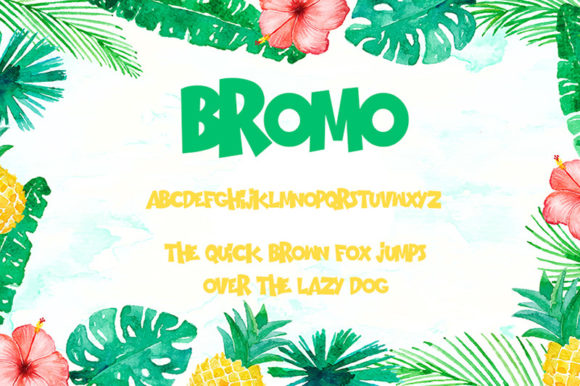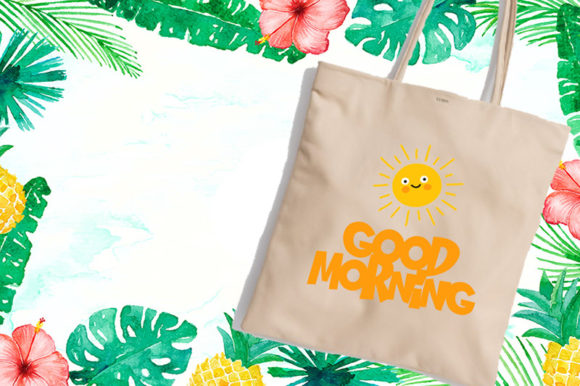
Bromo Font: The Ultimate Choice for Crafty Designs
Are you a designer or crafter looking for a unique and bold font to elevate your creative projects? Look no further than Bromo Font, a whimsical and eye-catching display font that’s perfect for crafting, titles, displays, and more. With its thick lettered and cool vibe, Bromo Font is sure to add a touch of personality to any design.
What Makes Bromo Font Special?
Bromo Font is a one-of-a-kind font that boasts a distinctive and original look. Its bold and thick lettering gives it a rugged and edgy feel, making it perfect for crafty designs that require a bit of attitude. Whether you’re working on a letterhead, title, or stationery, Bromo Font is sure to make a statement.
Key Features of Bromo Font
- Whimsical and bold design: Bromo Font features a unique and playful design that’s perfect for crafty and creative projects.
- Thick lettered and cool vibe: The font’s bold and thick lettering gives it a rugged and edgy feel that’s sure to appeal to designers and crafters.
- Versatile: Bromo Font is perfect for a wide range of crafty ideas, from letterheads and titles to stationery and displays.
- Easy to read: Despite its bold design, Bromo Font is easy to read and understand, making it perfect for use in titles, headings, and other display text.
How to Use Bromo Font in Your Designs
Bromo Font is incredibly versatile and can be used in a variety of creative projects. Here are a few ideas to get you started:
- Letterheads and titles: Use Bromo Font to add a touch of personality to your letterheads and titles. Its bold design makes it perfect for use in headings and subheadings.
- Stationery: Add a touch of whimsy to your stationery with Bromo Font. It’s perfect for use in greeting cards, invitations, and other paper crafts.
- Displays and signage: Bromo Font is perfect for use in displays and signage. Its bold design makes it easy to read from a distance, making it perfect for use in store signs, billboards, and other outdoor displays.
- Crafting projects: Bromo Font is perfect for use in a variety of crafting projects, from scrapbooking to DIY jewelry making.
Tips for Getting the Most Out of Bromo Font
Here are a few tips for getting the most out of Bromo Font:
- Use it sparingly: Bromo Font is a bold font, so it’s best to use it sparingly. Use it for headings and titles, and pair it with a simpler font for body text.
- Experiment with colors: Bromo Font looks great in a variety of colors, so don’t be afraid to experiment. Try pairing it with bright and bold colors for a fun and playful look.
- Pair it with other fonts: Bromo Font pairs well with a variety of other fonts, so try experimenting with different combinations to find the one that works best for your project.
Bromo Font is a unique and versatile font that’s perfect for designers and crafters looking to add a touch of personality to their creative projects. With its bold and whimsical design, Bromo Font is sure to make a statement in any design. Whether you’re working on a letterhead, title, or stationery, Bromo Font is the perfect choice.